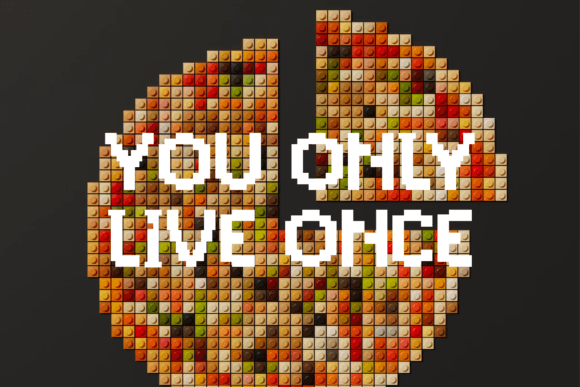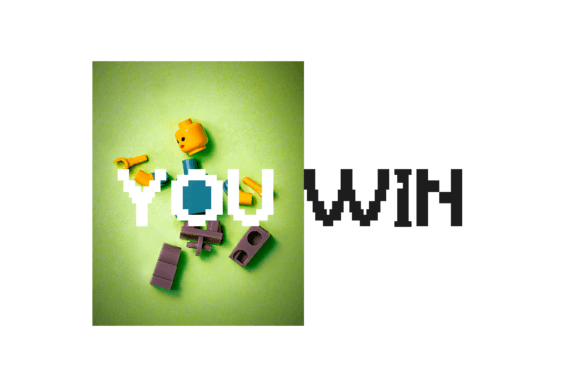
Introduction to Konax Font
You’re in the middle of a design project, and you need that perfect font to bring your creative vision to life. You’ve scrolled through countless options, but nothing seems quite right. That’s when you stumble upon the Konax Font – a Sans font based on Pixel characters that’s sure to elevate your design to the next level.
With its great font look, the Konax Font is perfect for completing your design and looks great for your every work. Whether you’re working on movie covers, branding identity, stationery, music posters, or even CD’s covers, this font is sure to make your project stand out. Plus, its high-quality design makes it a valuable resource for any designer looking to add a touch of professionalism to their work.
Konax Font: Key Features
- Designed with a modern aesthetic, Konax Font is perfect for contemporary design projects that require a unique touch.
Honest Review: Konax Font
As a designer, I’m always on the lookout for high-quality design resources to enhance my creative projects. Recently, I stumbled upon the Konax Font, a free download that caught my attention. Let’s dive into my honest review.
- ✨ The font’s sleek and modern design makes it perfect for contemporary projects.
- ✨ It’s incredibly versatile, suitable for both digital and print materials.
- ✨ The font comes with a transparent background, allowing for seamless integration with various design elements.
- ⚠️ The font library is relatively small, limiting its use for complex projects.
- ⚠️ The font’s versatility also means it may not be as distinctive as other fonts in a crowded design landscape.
Overall, the Konax Font is a solid addition to any designer’s toolkit. While it may have its limitations, its high quality and free download make it a valuable resource for creative projects. If you’re looking for a modern, versatile font to enhance your designs, the Konax Font is definitely worth checking out.
The Konax Font is a high-quality design resource perfect for any creative project. With its transparent background and sleek design, it’s ideal for making a statement in your next project.
To get the most out of the Konax Font, experiment with different font sizes, colors, and combinations to find the perfect look for your project.
The Konax Font is perfect for use in a variety of projects, including business cards, brochures, and digital presentations.